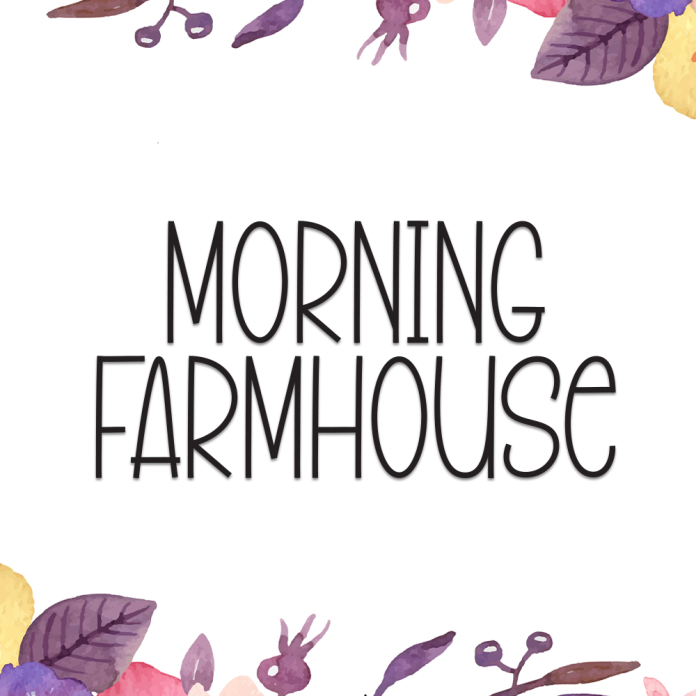
Morning Farmhouse is a charming and rustic display font that brings the warmth of country living to your designs. With handcrafted vibes and a cozy farmhouse feel, this font is perfect for home decor quotes, organic product labels, vintage packaging, and farmhouse-style branding.
Wake up your creativity with rustic charm.
Rustic Display Typeface
Uppercase & Lowercase Letters
Perfect for Farmhouse Decor, Labels & Branding
Numbers & Punctuation
Bring the comfort of the countryside to your projects with Morning Farmhouse.